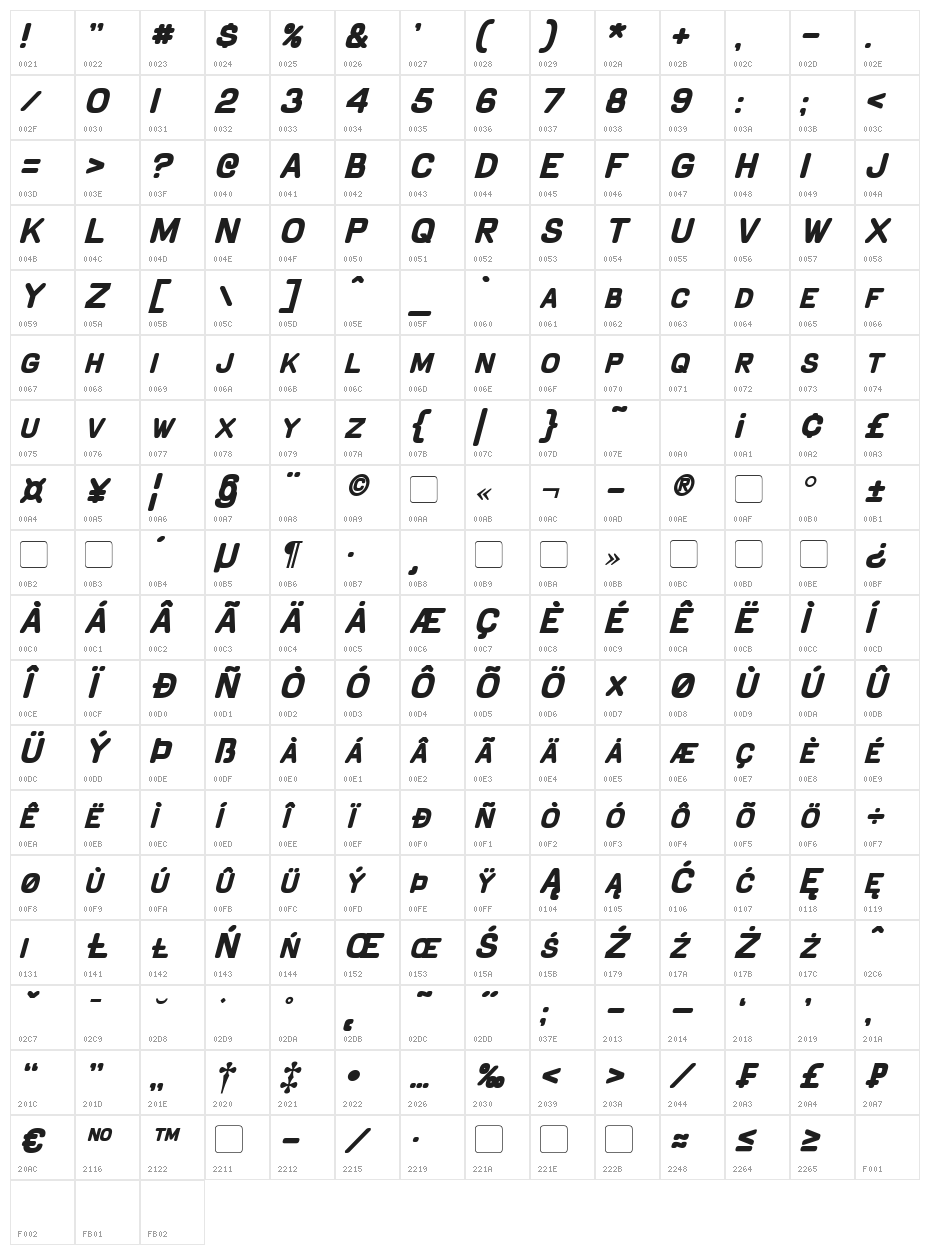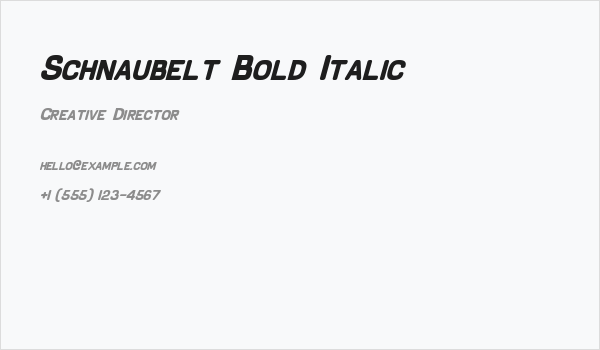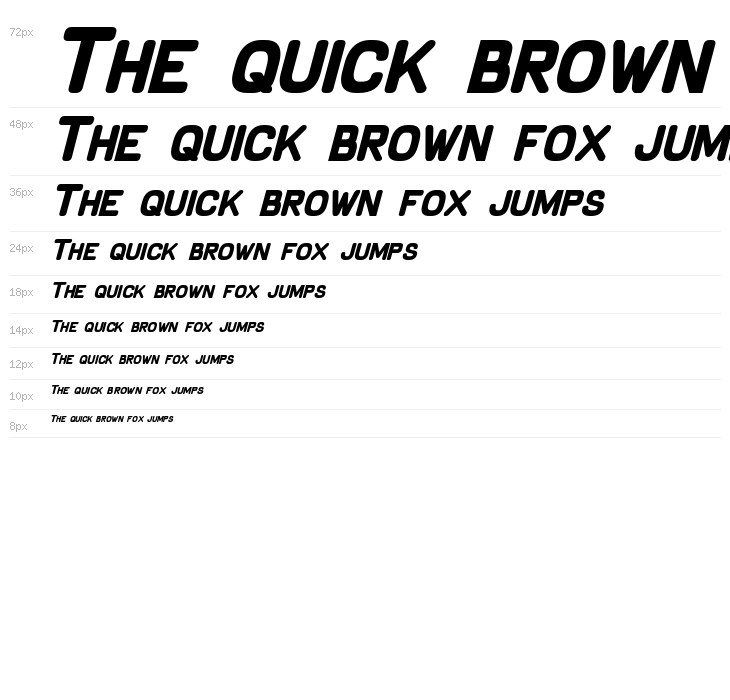
Schnaubelt Bold Italic Font
Schnaubelt Bold Italic Description
This font features a bold and italicized style, characterized by its strong and dynamic appearance. The letters are slightly slanted, giving a sense of movement and energy. The strokes are thick and consistent, providing a robust and impactful look. The characters are well-defined with smooth curves and sharp edges, making them highly legible. The font maintains a modern aesthetic, suitable for various design applications. Its boldness and italic nature make it stand out, perfect for attention-grabbing headlines or titles. The numbers and special characters are designed to match the overall style, ensuring a cohesive look across all text elements.
| Proposed Projects | Ideal for branding, advertising, posters, and headlines where a strong and modern impact is desired. |